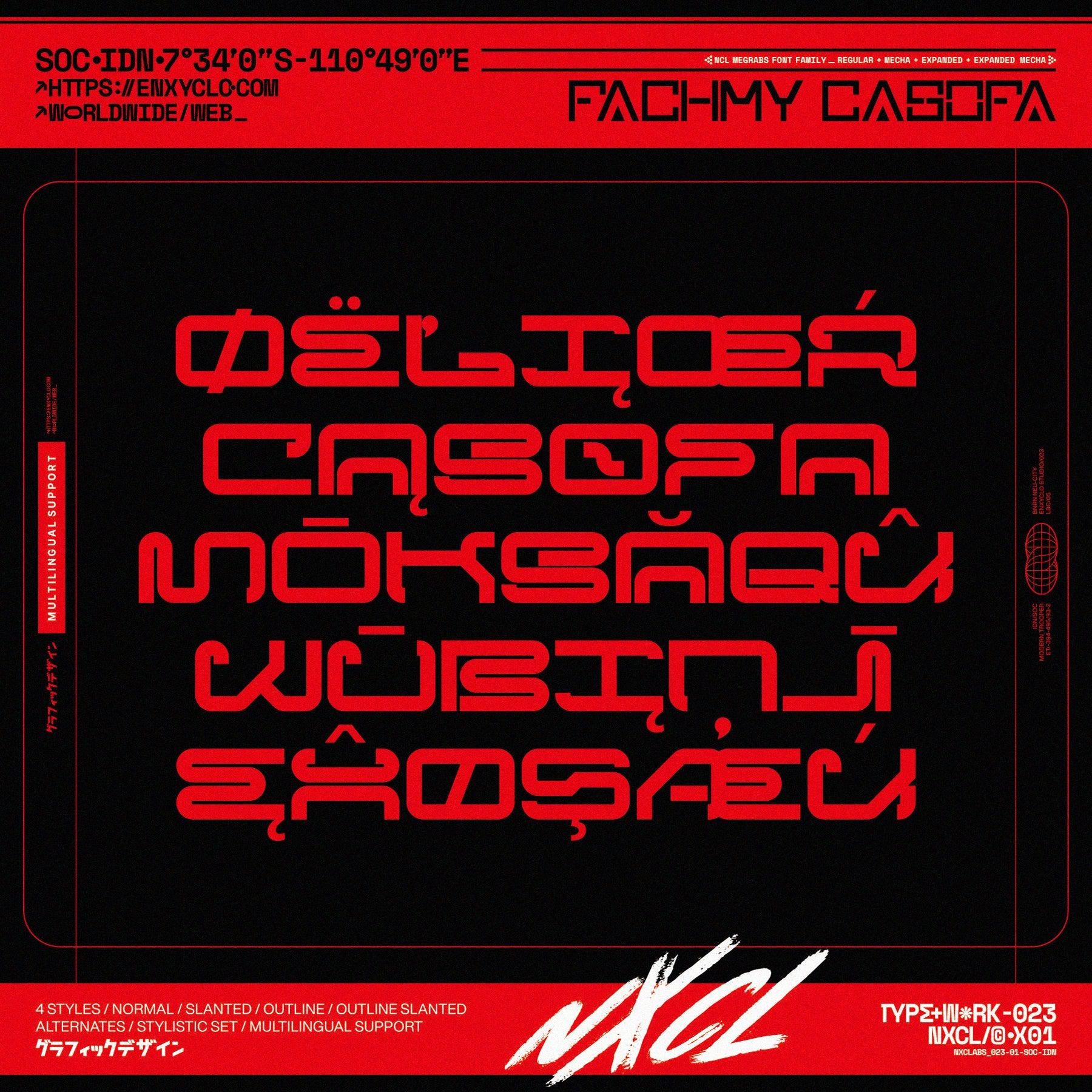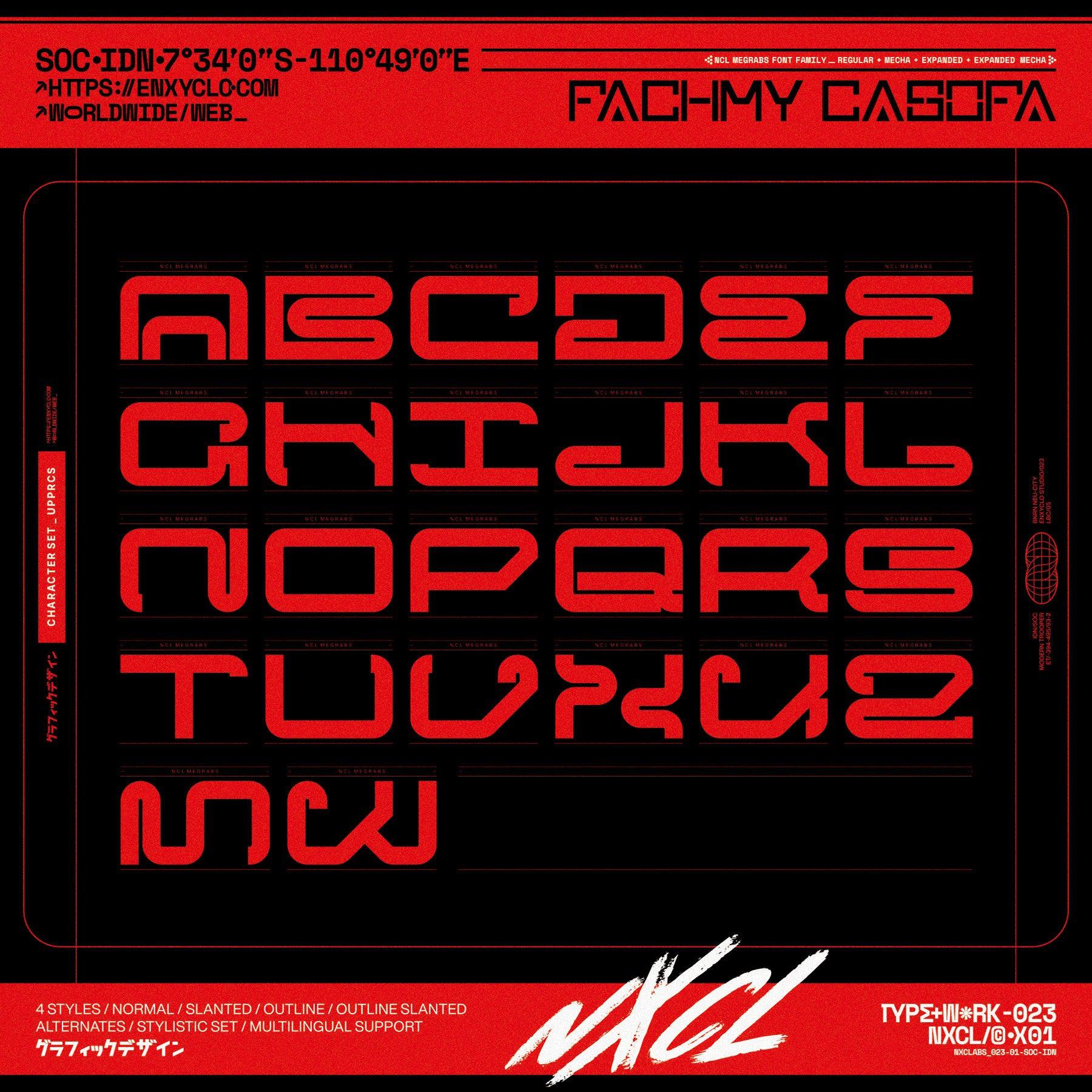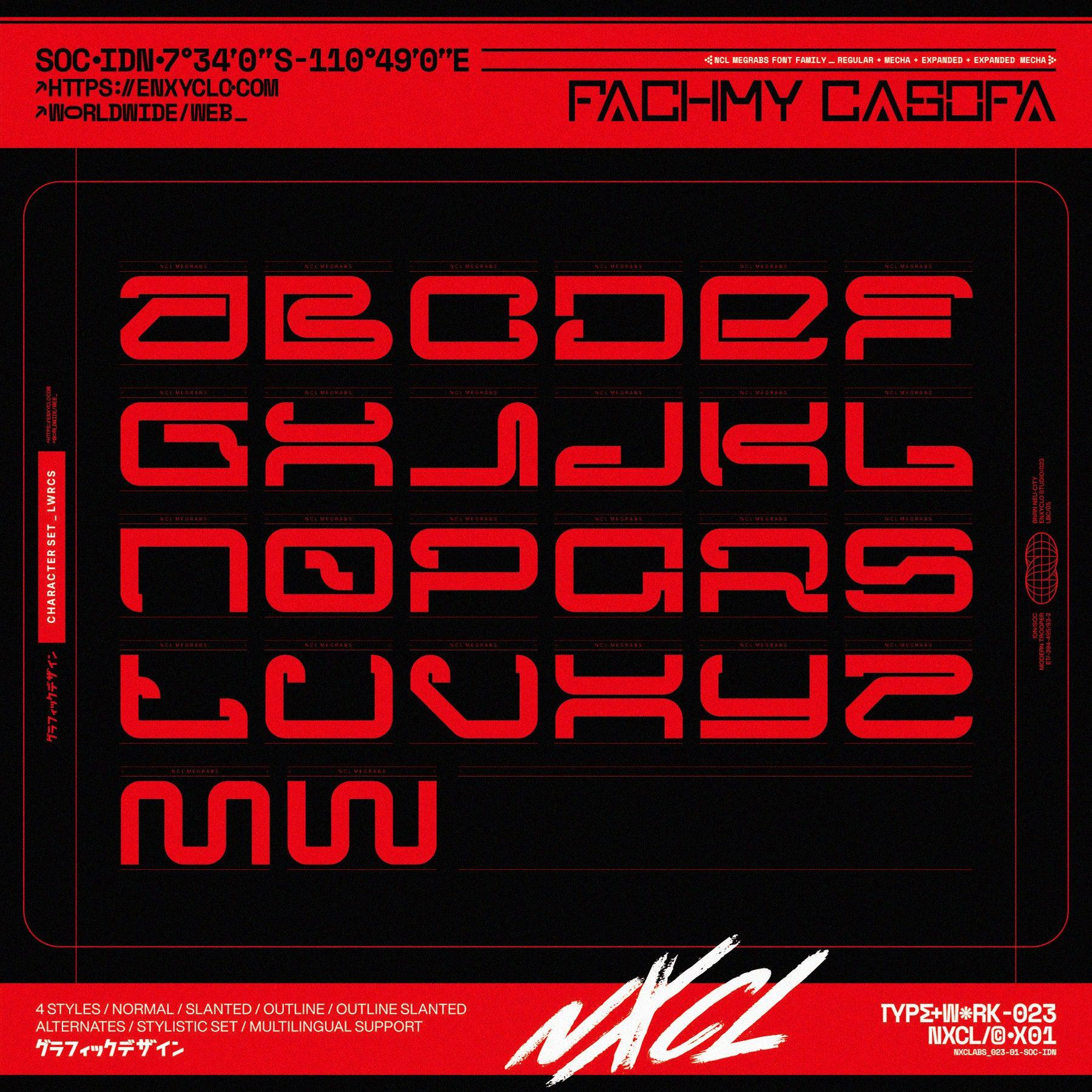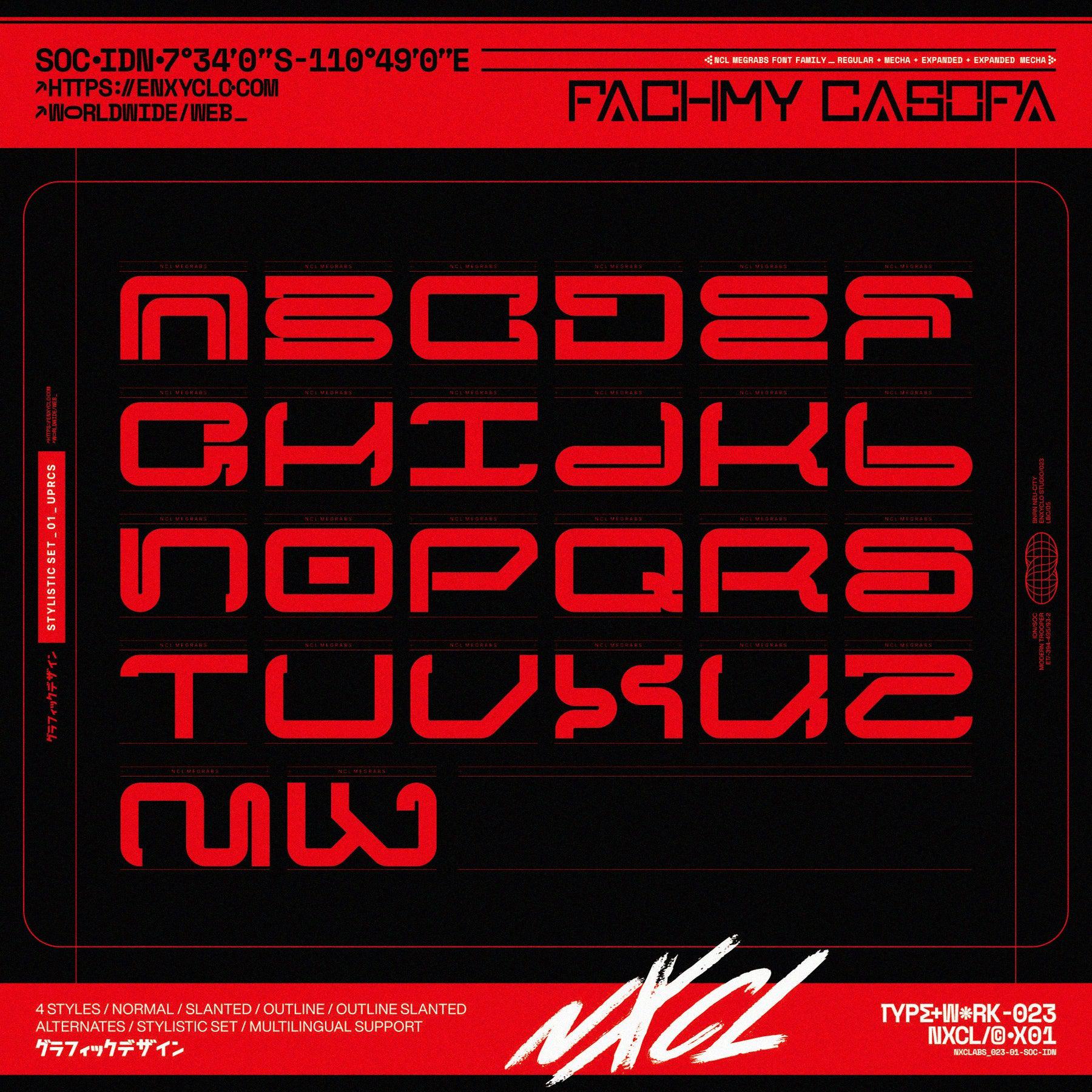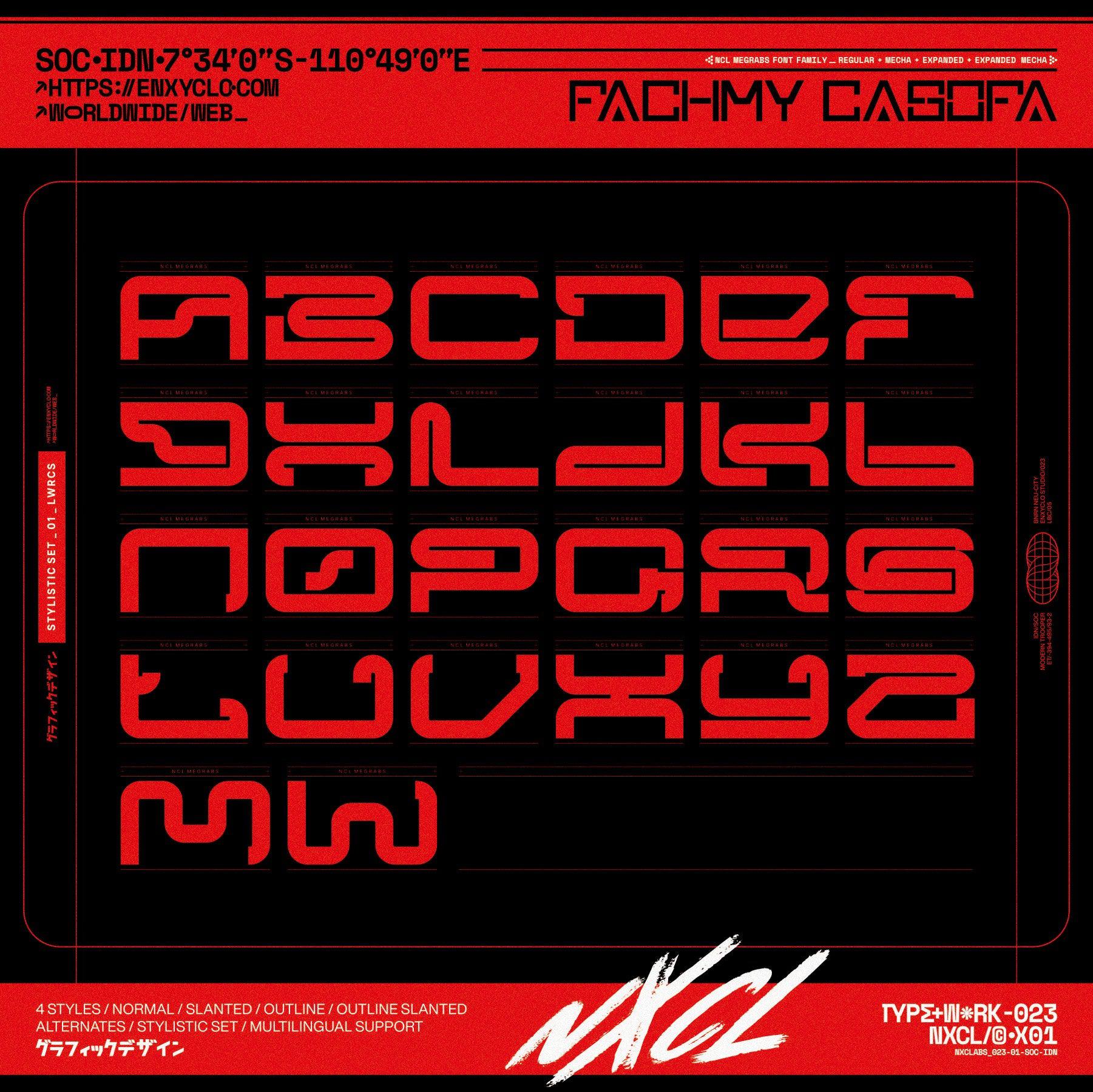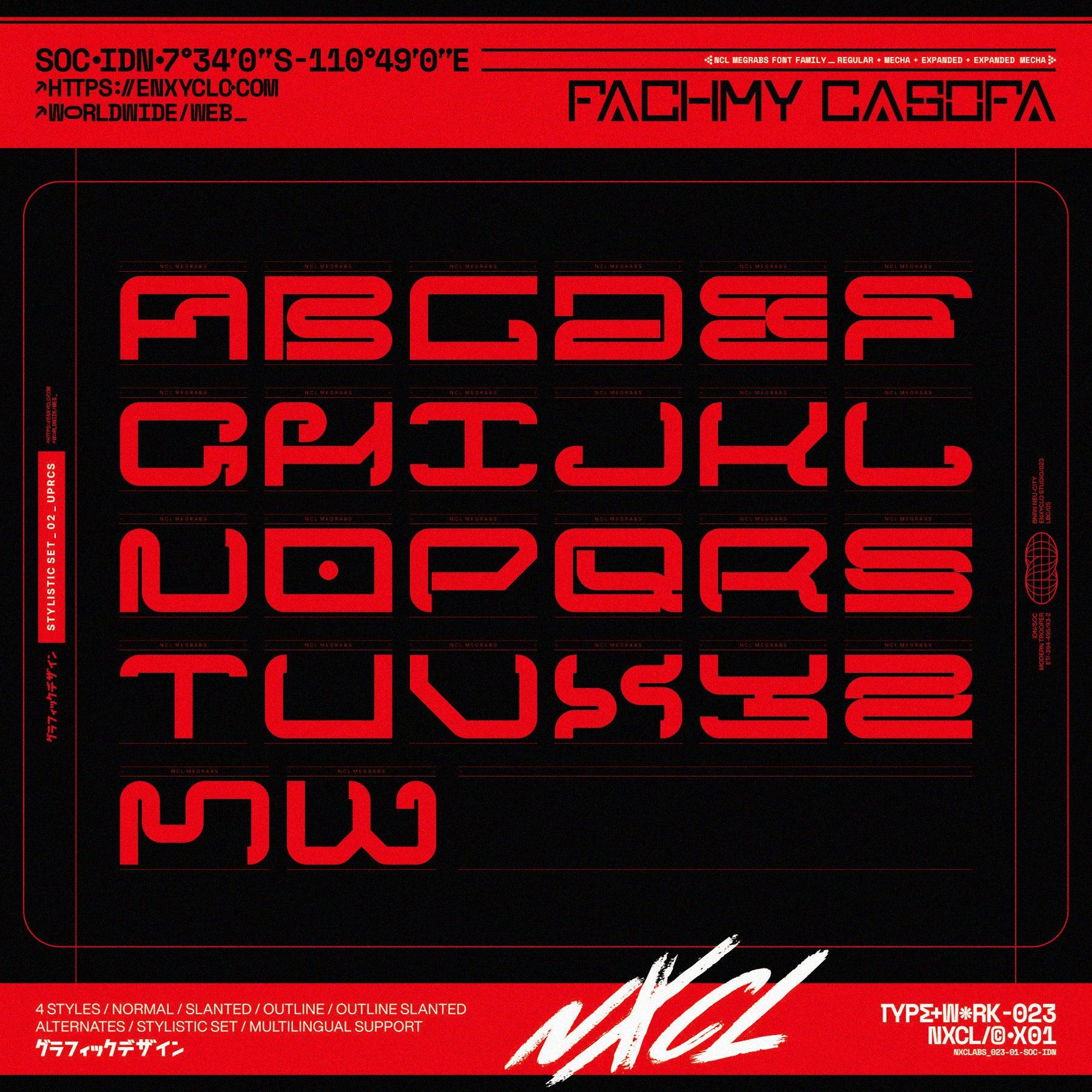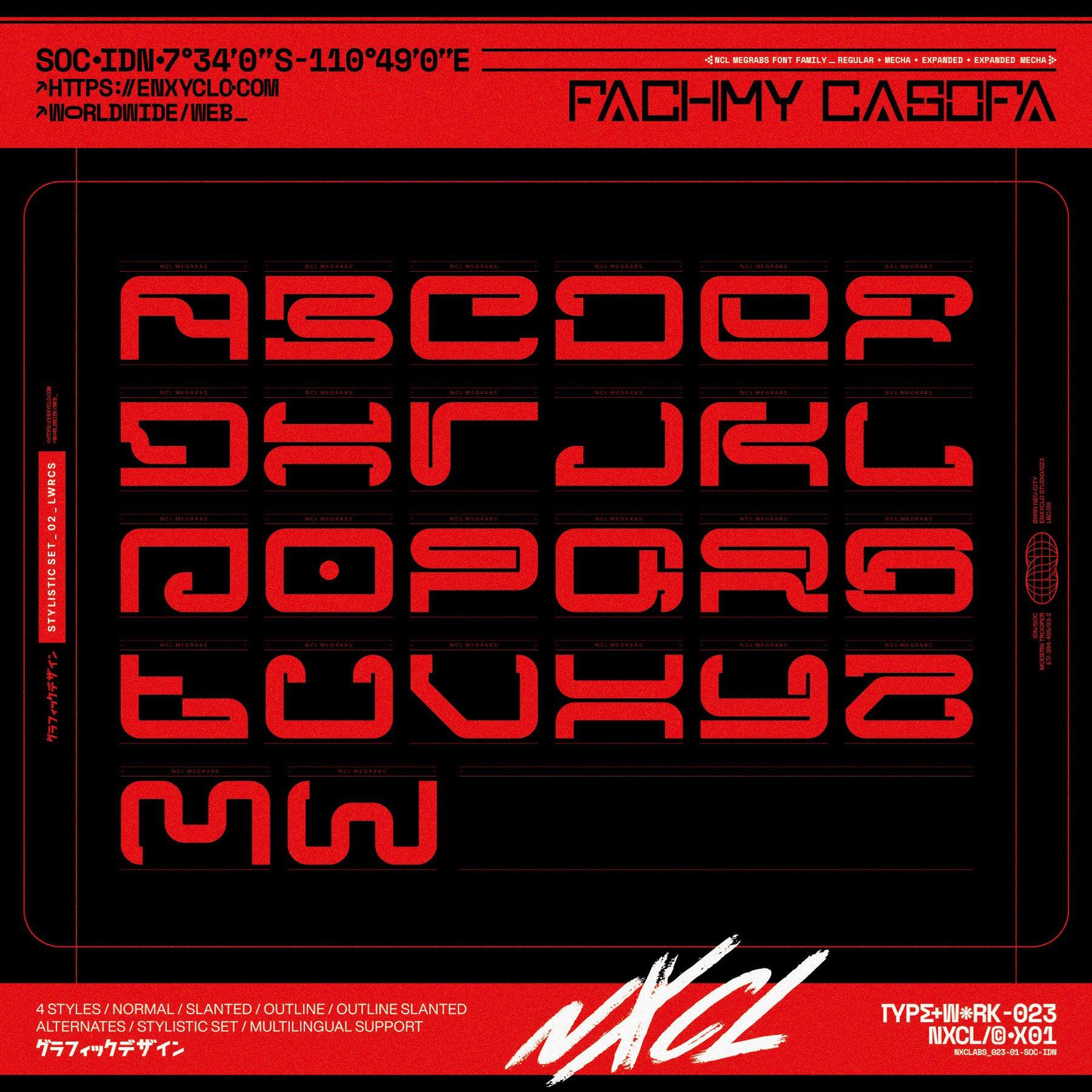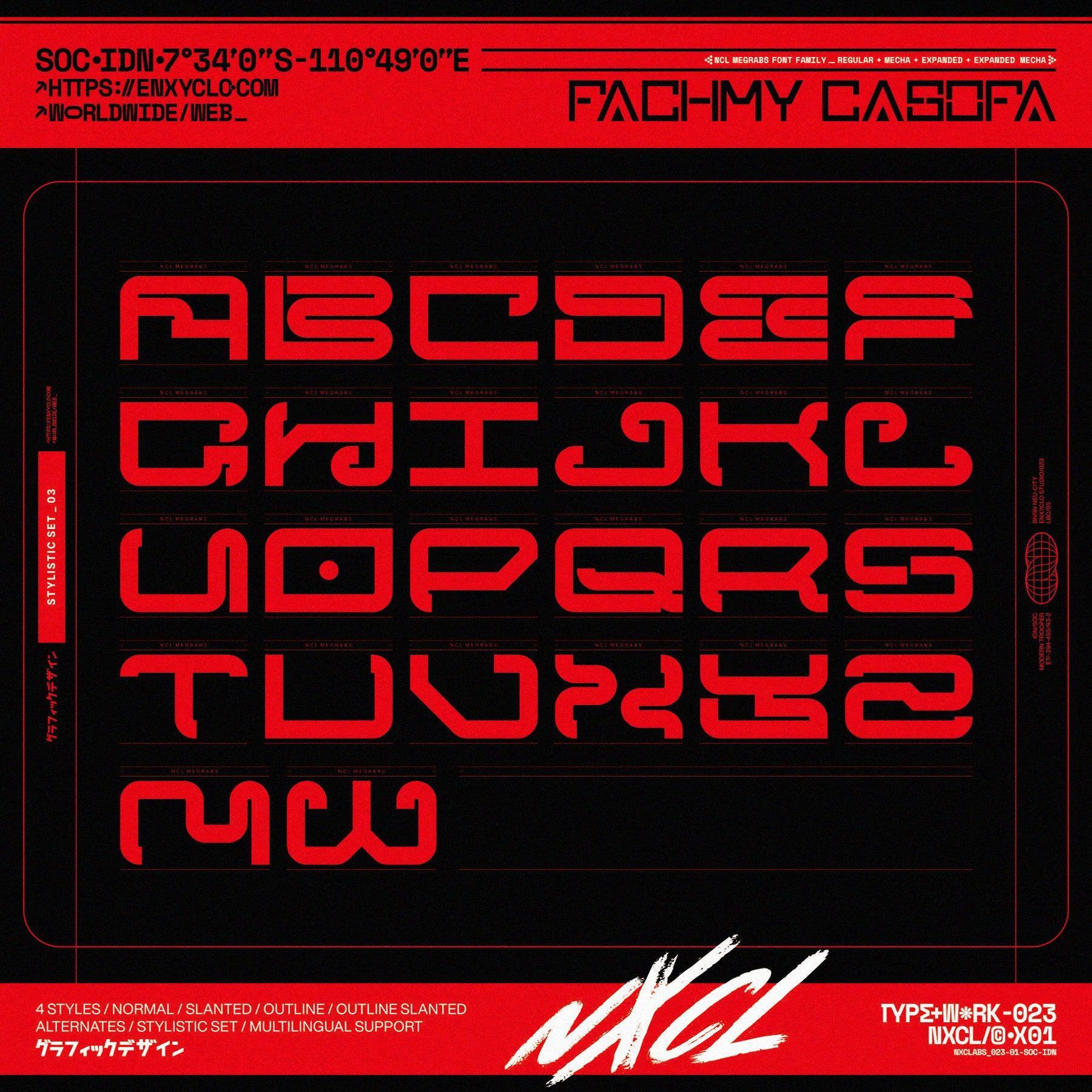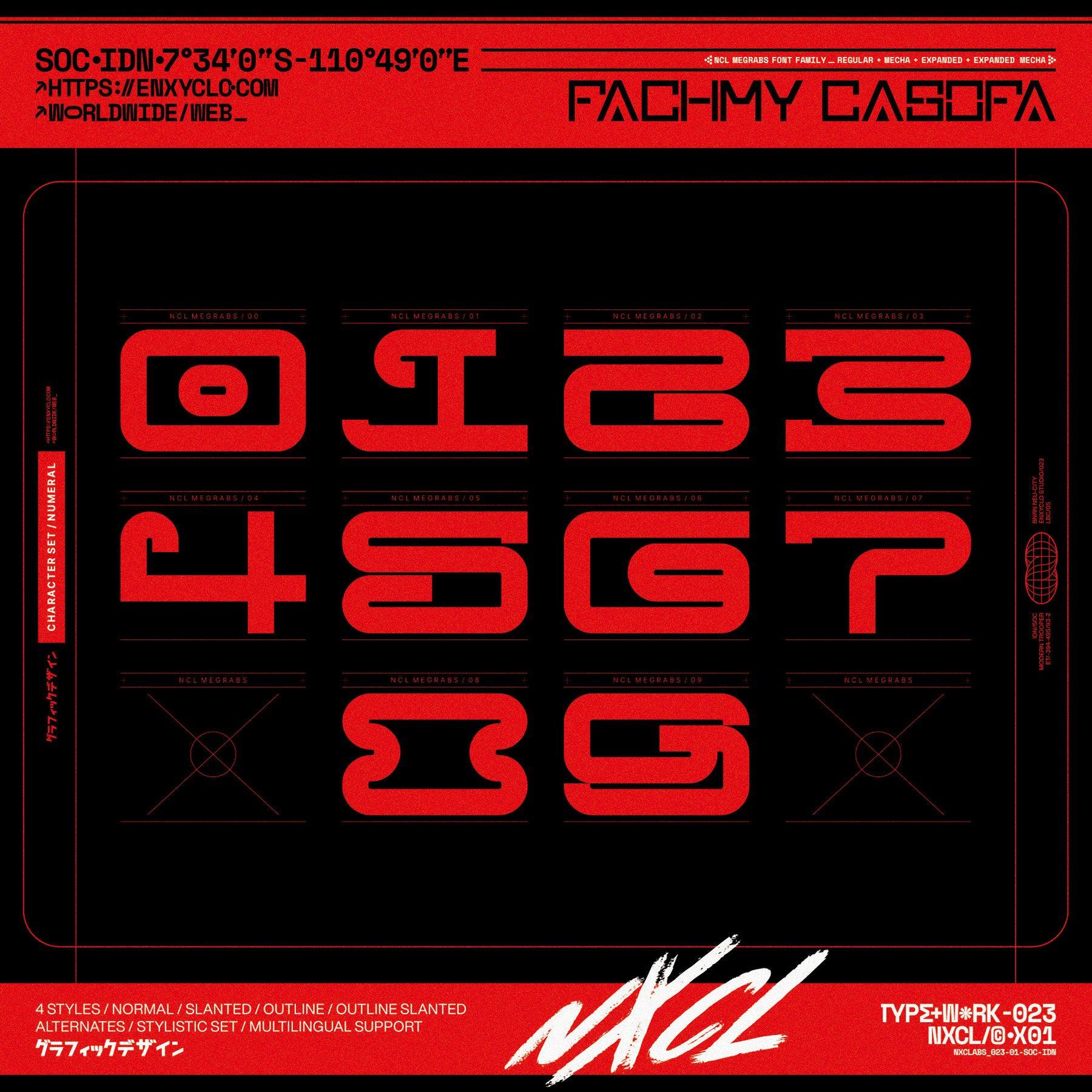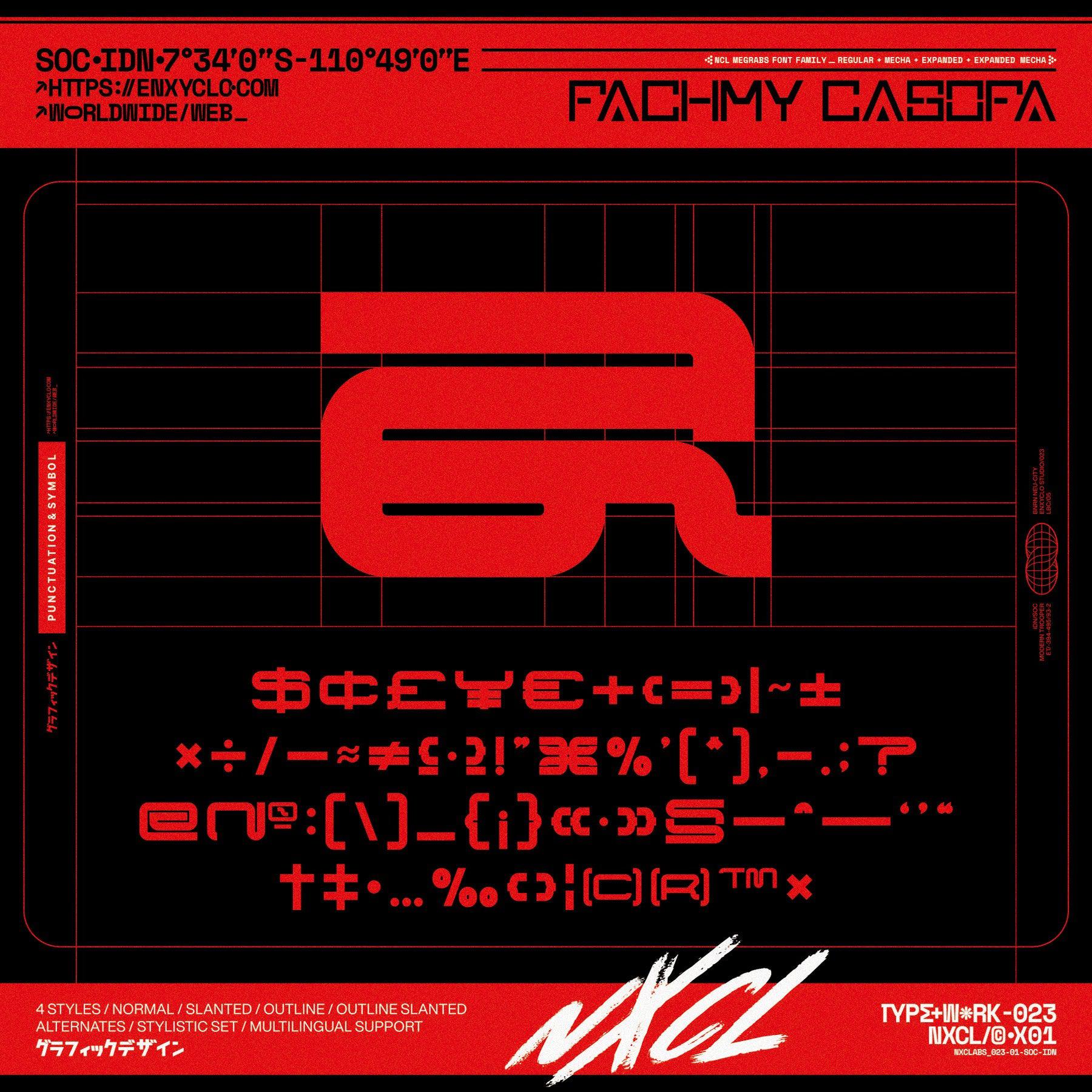
NCL Megrabs - Industrial Brutalism Futuristic Font
The NCL Megrabs - Industrial Brutalism Futuristic Font is a modern techno font family that features a variety of styles including Regular, Mecha, Expanded, and Expanded Mecha, each with 468 glyphs. It supports True Type Font (TTF), Open Type Font (OTF), and Web Open Font Format (WOFF1 & WOFF2), and includes stylistic sets, uppercase and lowercase letters, numerals, punctuation, symbols, and multilingual support.
Ideal for modern and futuristic design projects, this versatile font family embodies industrial brutalism and techno aesthetics. Perfect for website headers, posters, branding, and album covers, ensuring a striking visual impact that elevates creative expression.